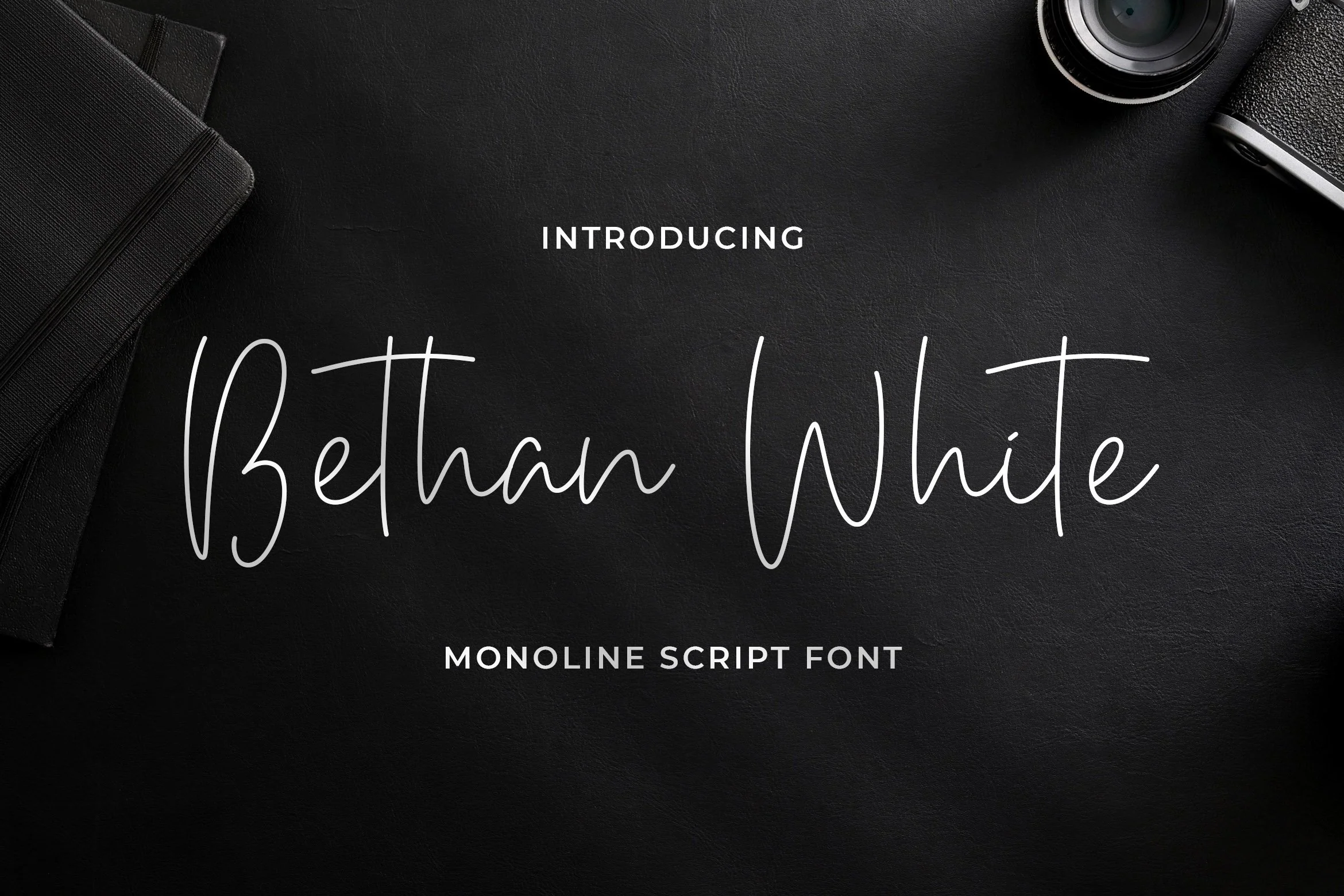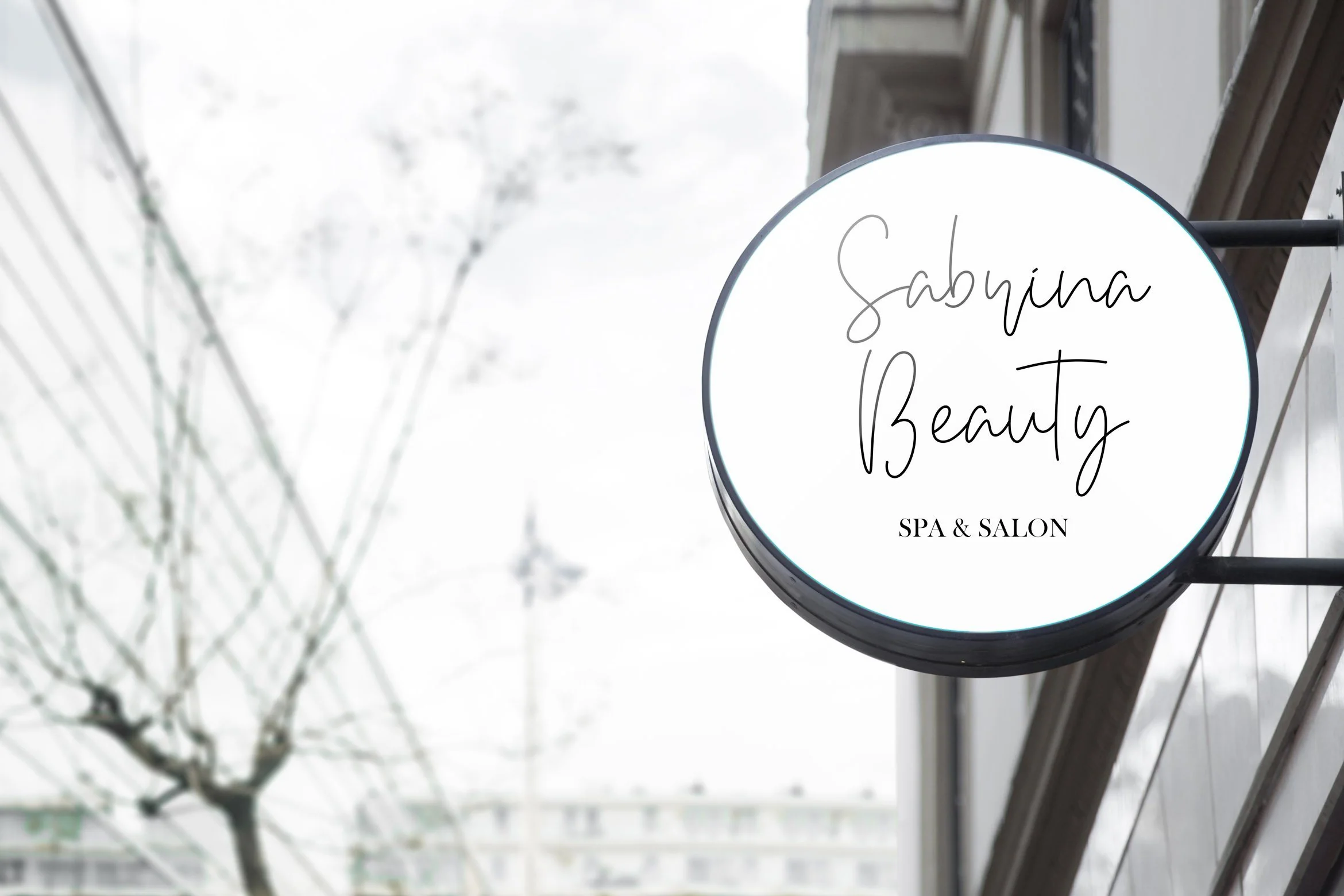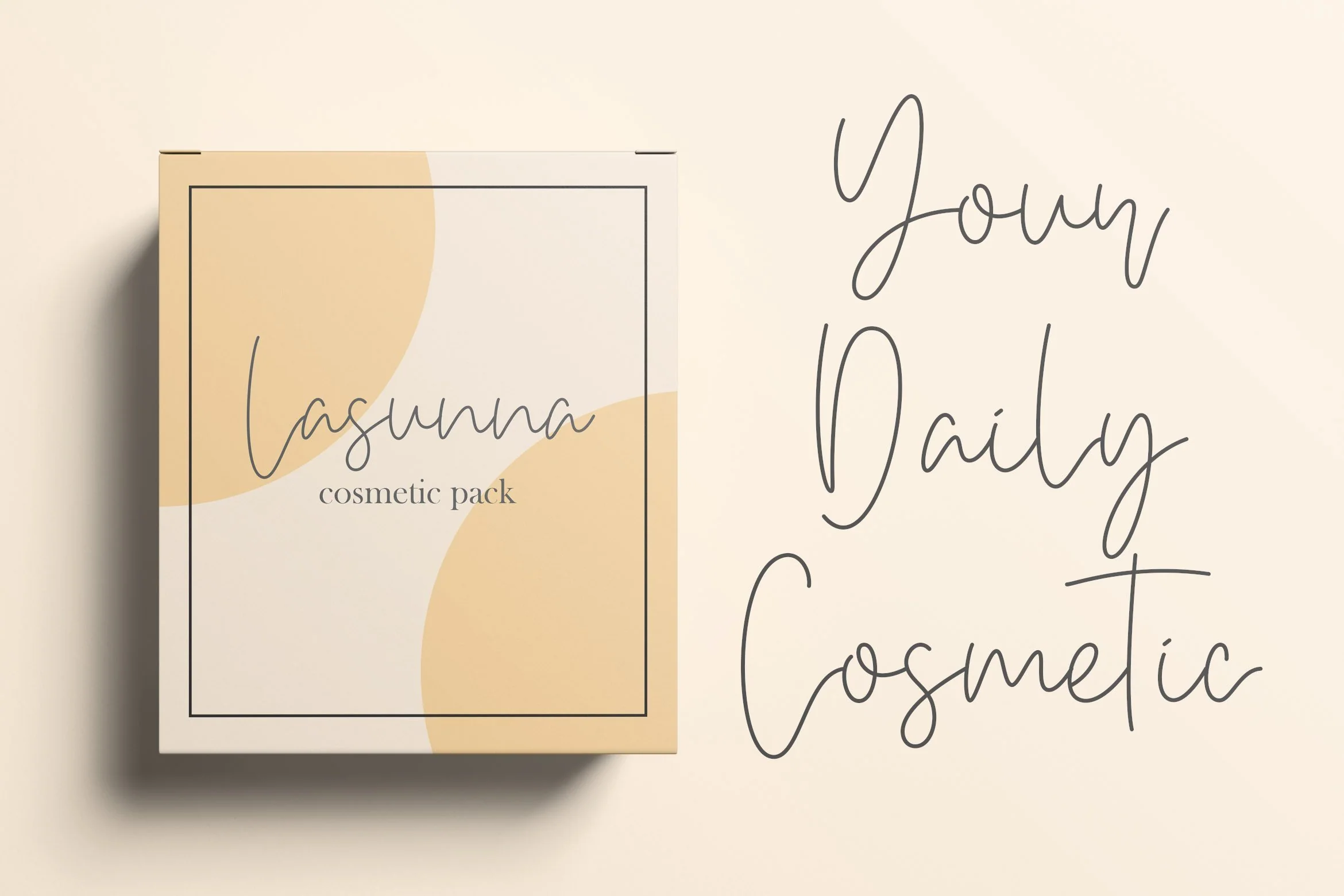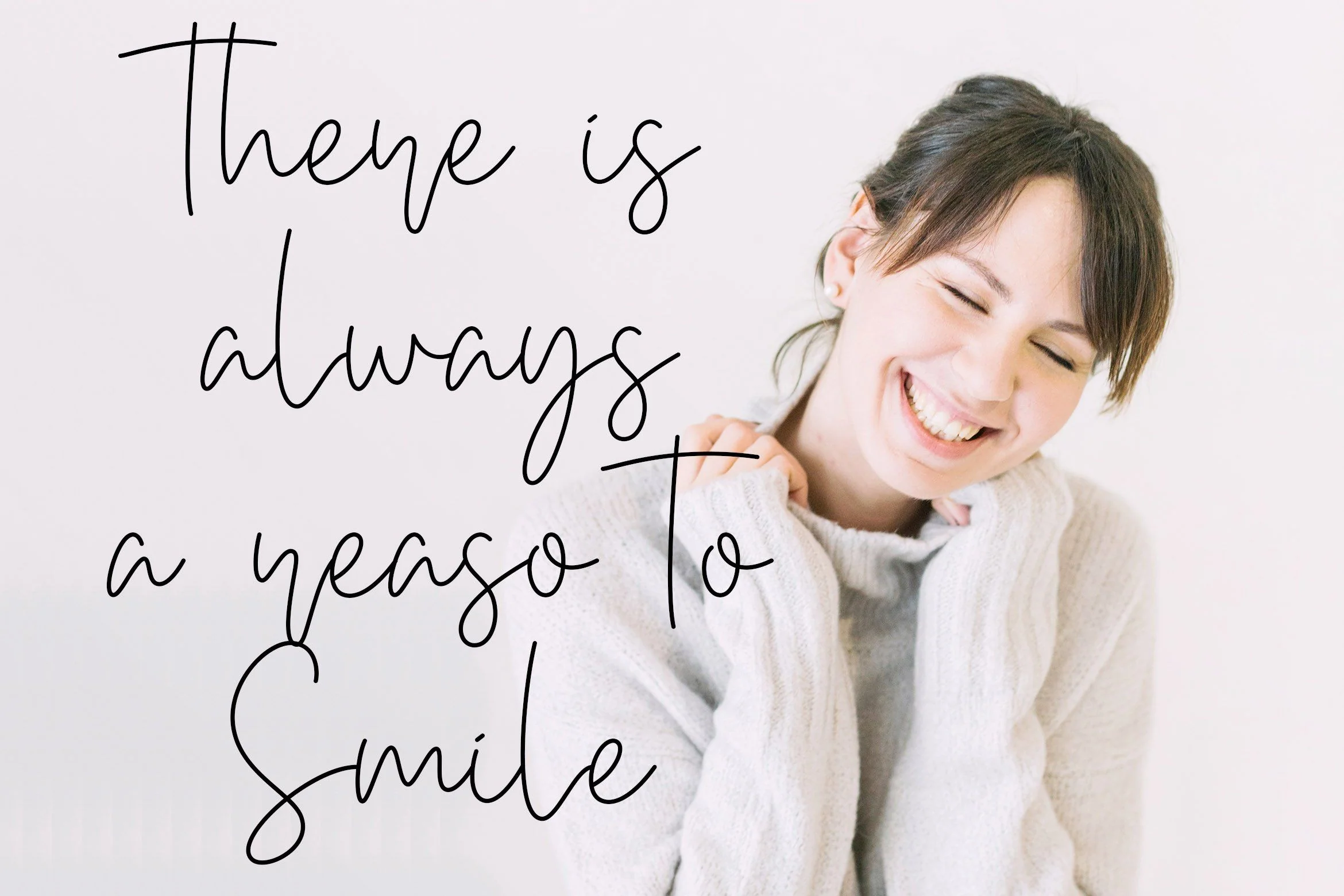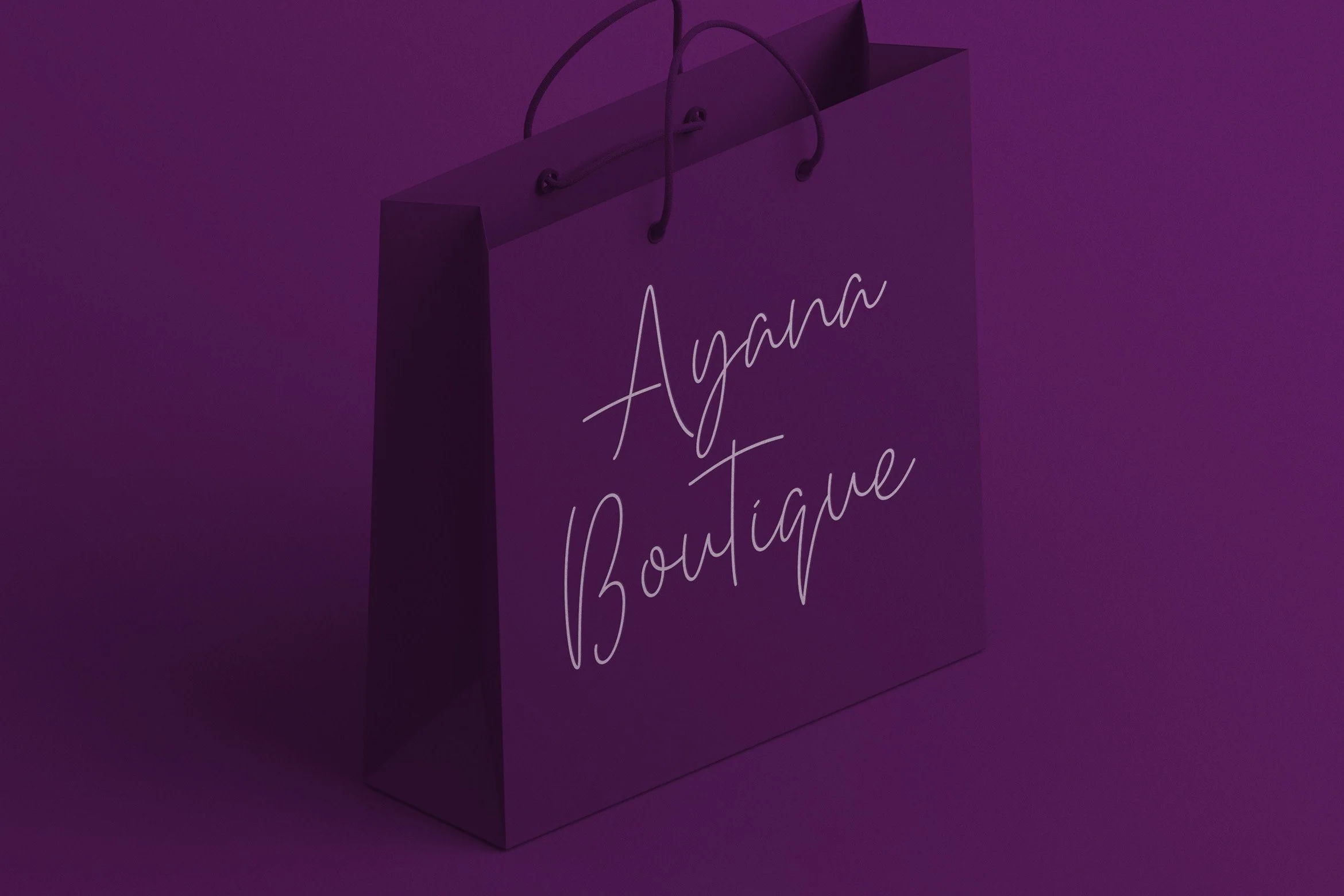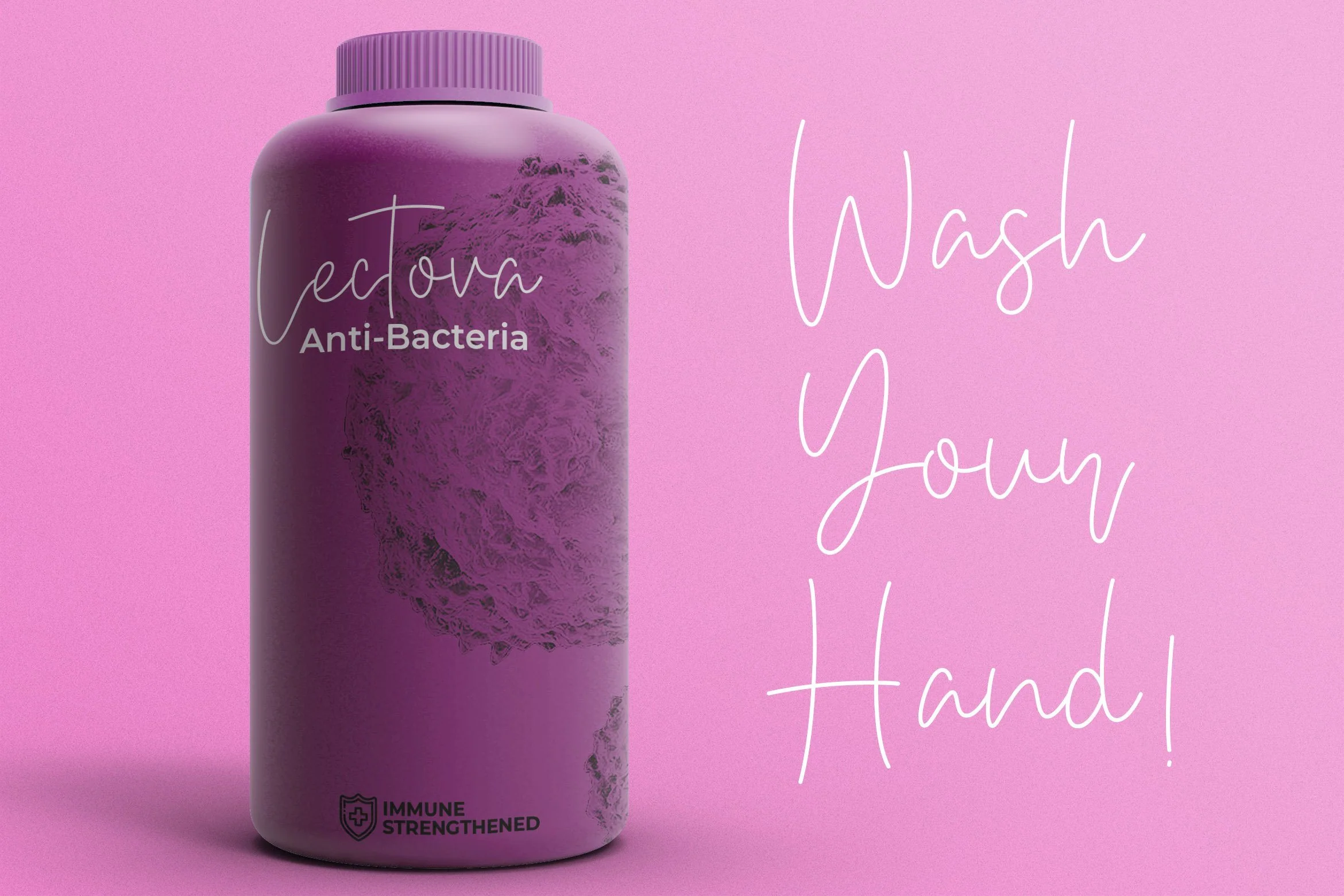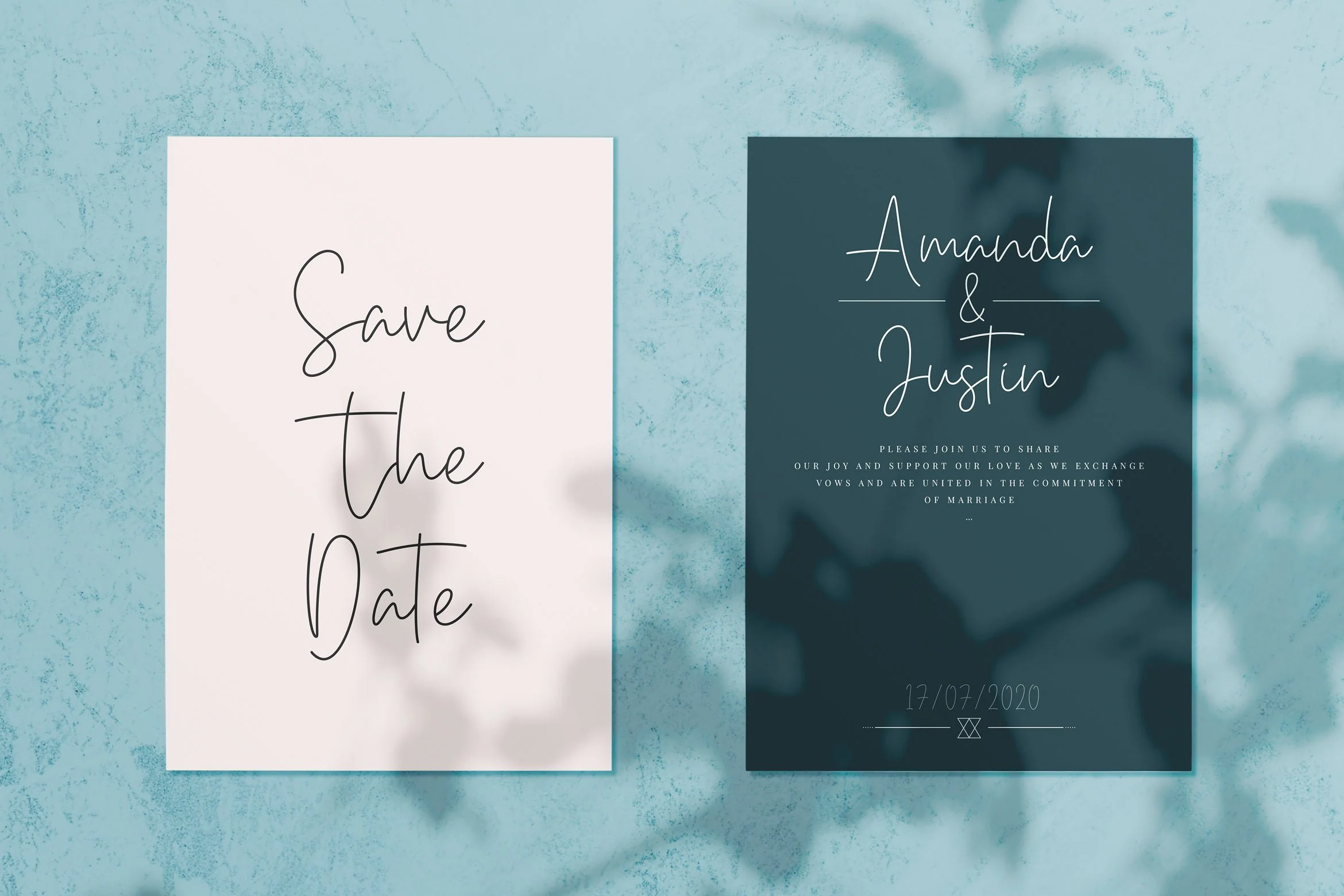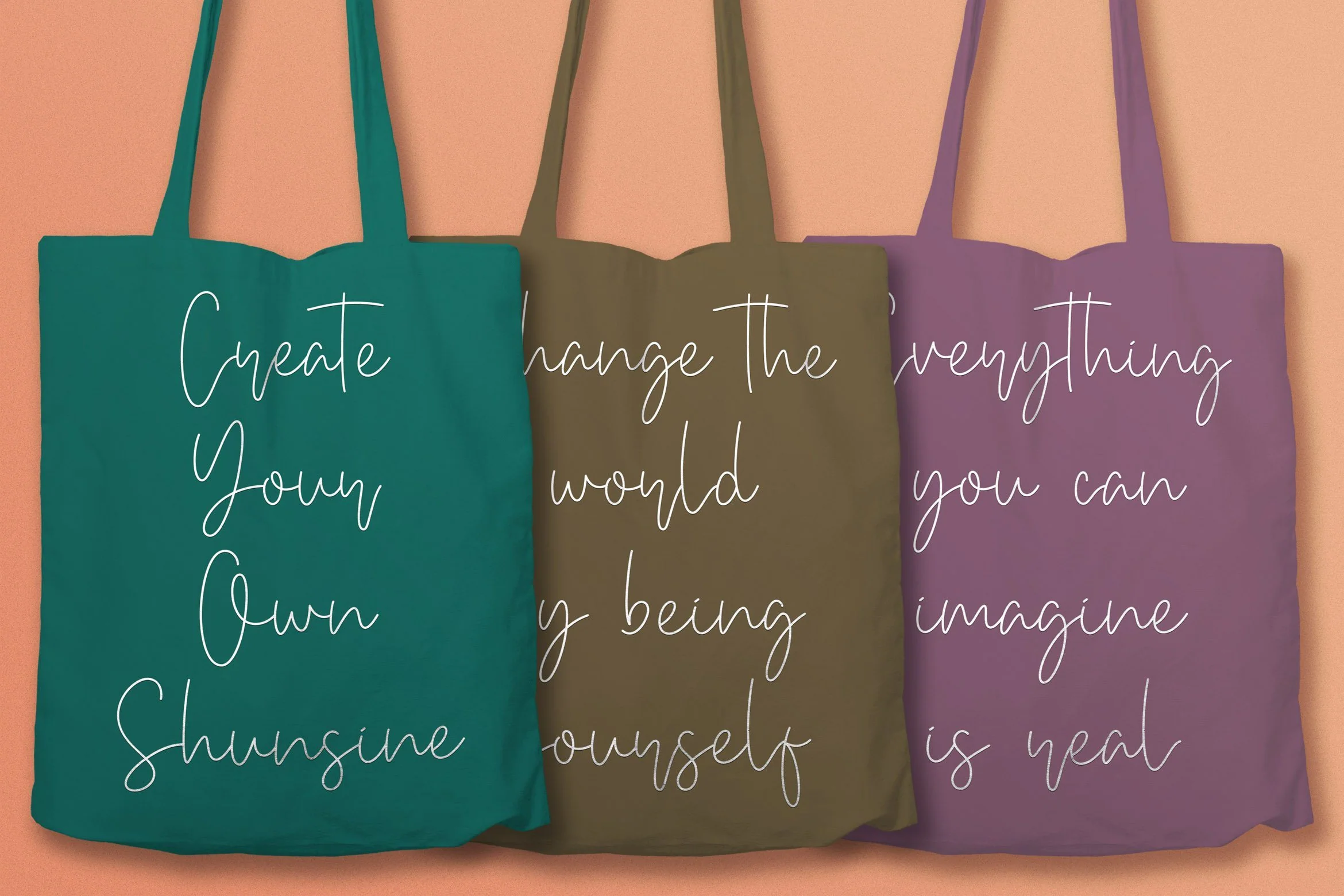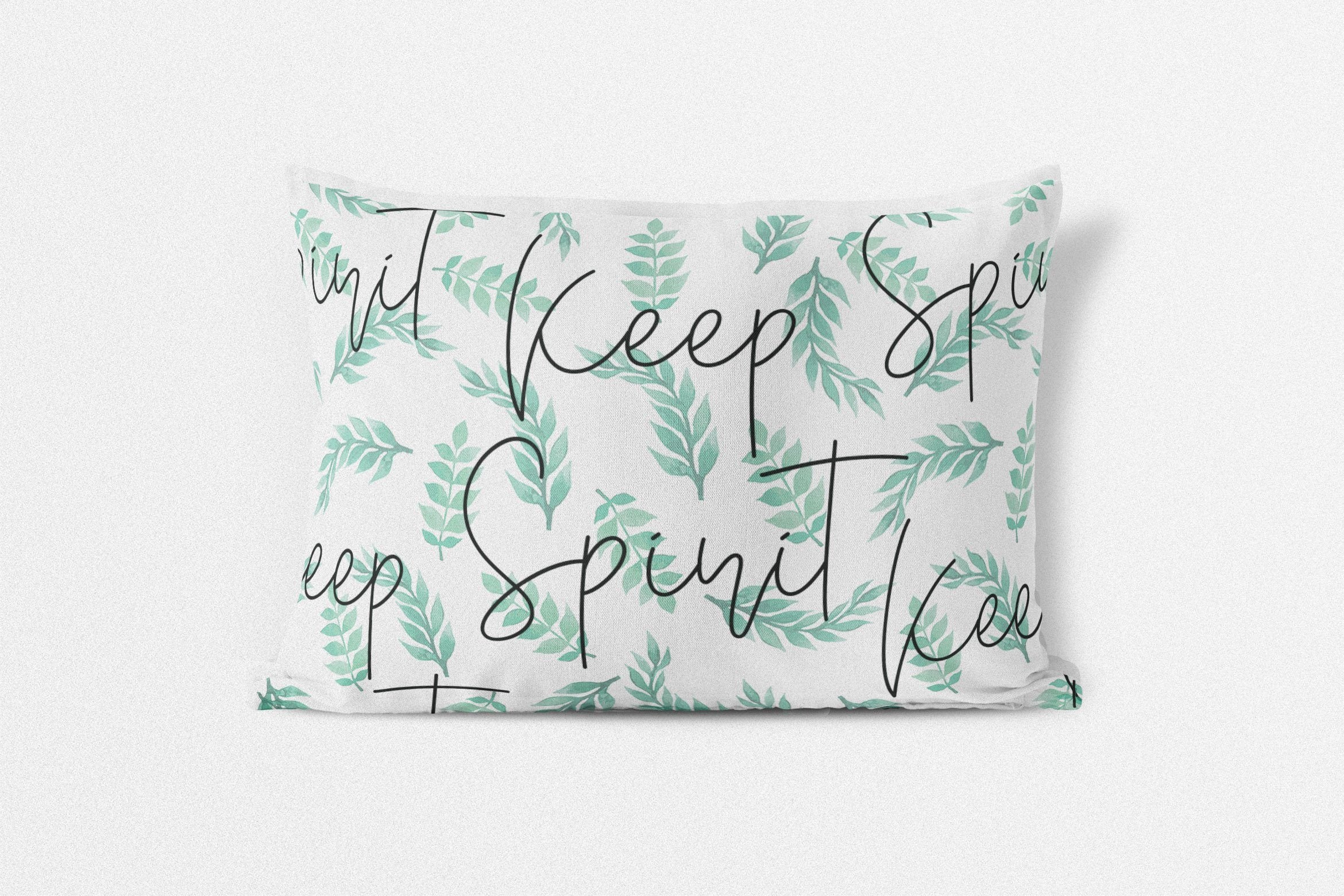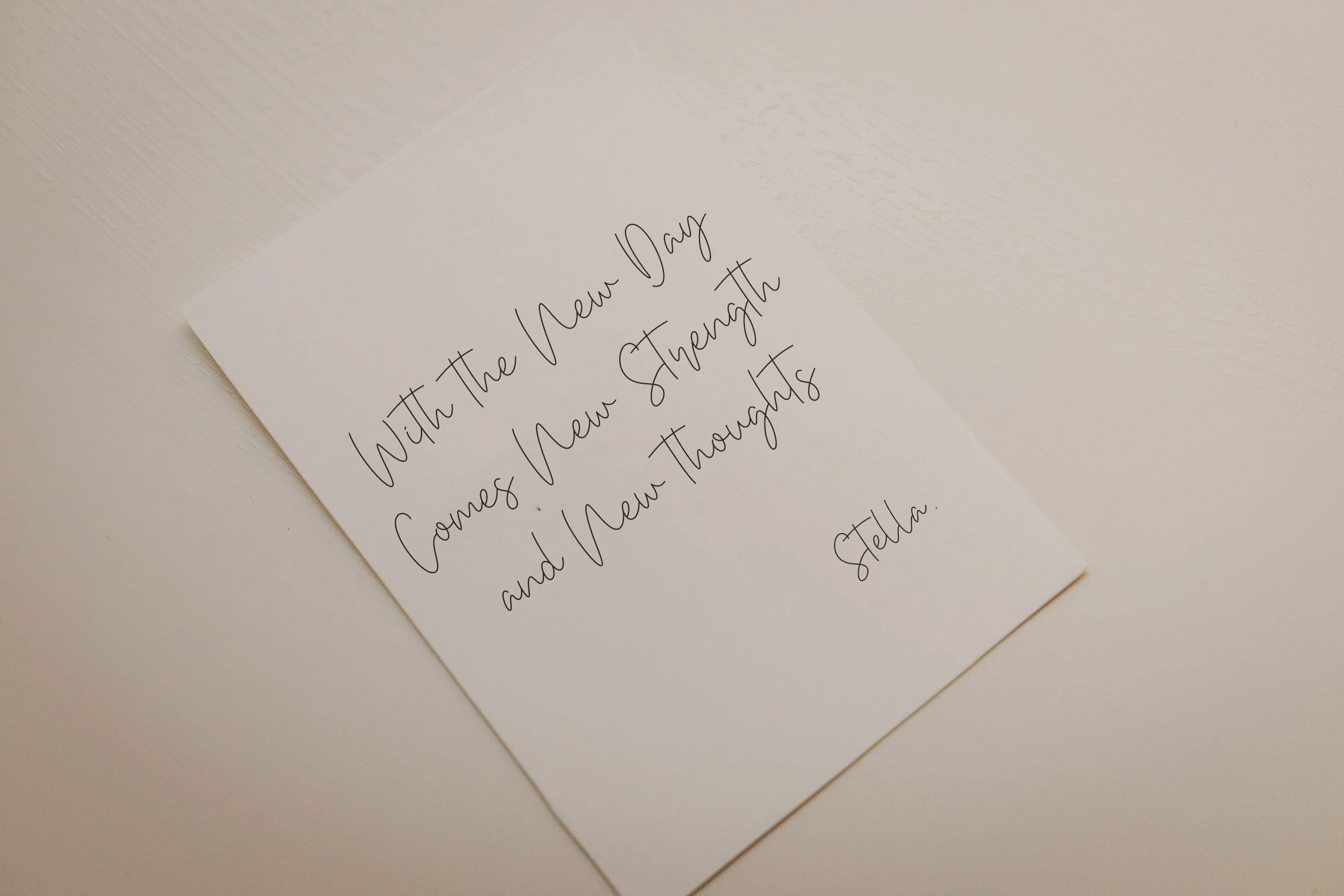
Bethan White - Monoline Script Font
Introducing Bethan White - Monoline Script Font
Bethan White is a Monoline Script Font with Handwritten Signature Style. The Bethan White font was created with original handwritting pen. This font is perfect for fashion brand, wedding invitation, business card, logo brand, signature, and then calligraphy.
This Font Template contains Classy, Elegant, Creative, Cool and has a Unique Concept.
Introducing Bethan White - Monoline Script Font
Bethan White is a Monoline Script Font with Handwritten Signature Style. The Bethan White font was created with original handwritting pen. This font is perfect for fashion brand, wedding invitation, business card, logo brand, signature, and then calligraphy.
This Font Template contains Classy, Elegant, Creative, Cool and has a Unique Concept.